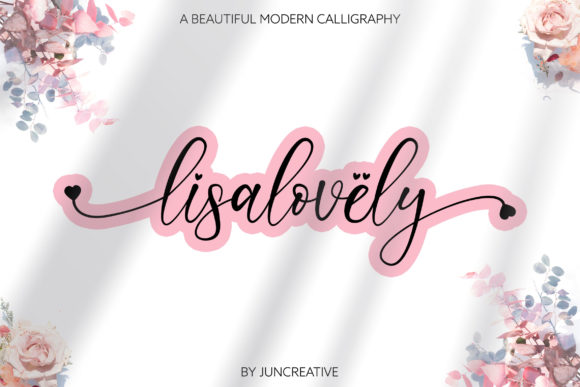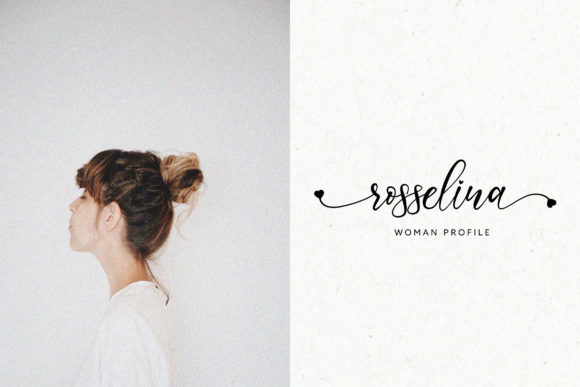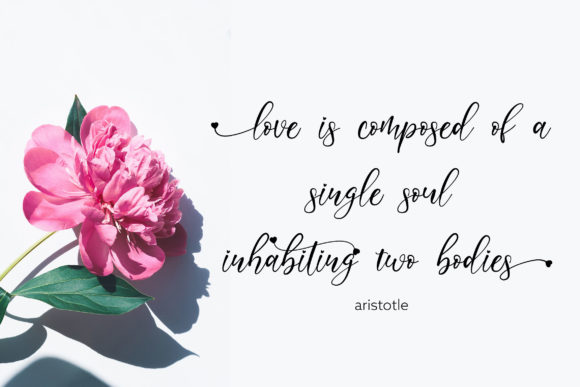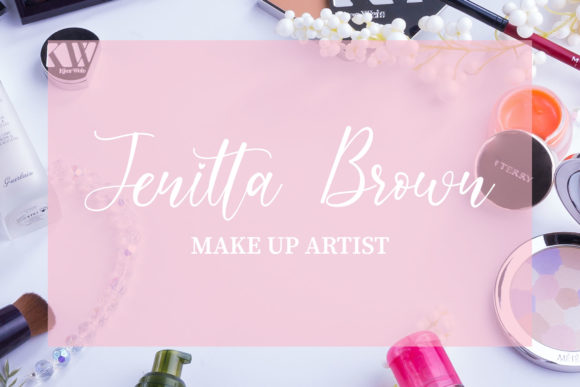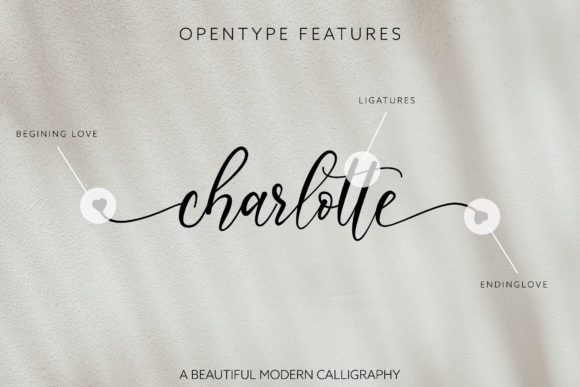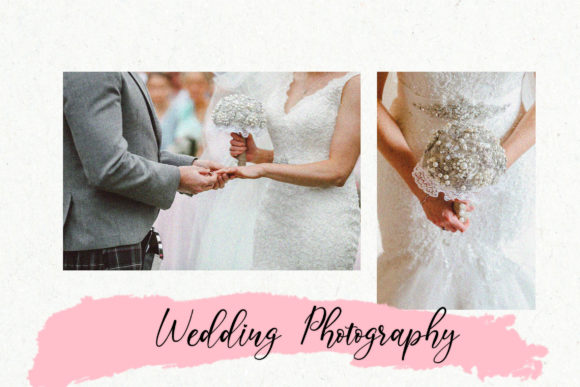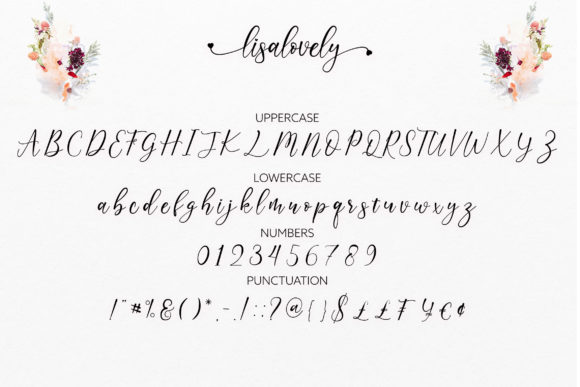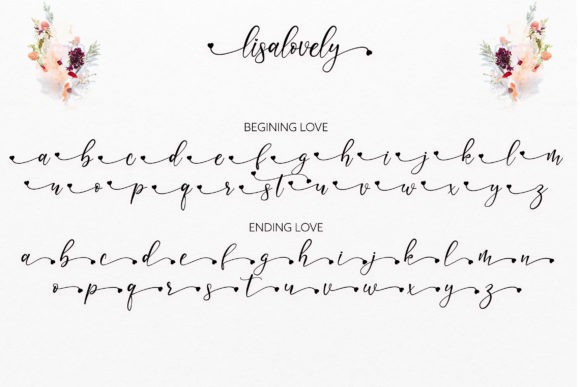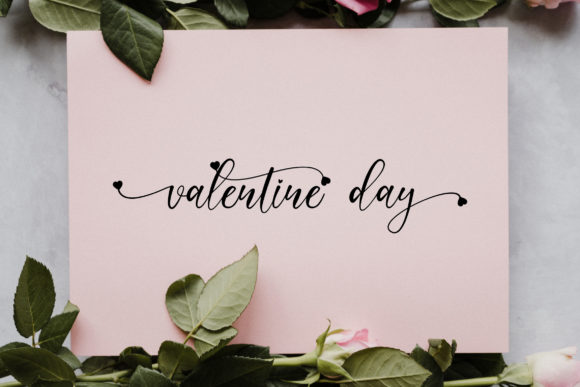
HomeScript FontsLisalovely Font Script Fonts Lisalovely Font FacebookXPinterestWhatsApp Lisalovely Font Poster 2 Lisalovely Font Poster 3 Lisalovely Font Poster 4 Lisalovely Font Poster 5 Lisalovely Font Poster 6 Lisalovely Font Poster 7 Lisalovely Font Poster 8 Lisalovely Font Poster 9 About Lisalovely Font Lisalovely is a wonderfully playful script full of charm. Fall in love with its modern elegance! DOWNLOAD ON CREATIVE FABRICAThis font is sold and delivered by Creative Fabrica. Font Canyon may earn a commission if you buy through this link. People also explored Kalimantan Font Hei Sweety Font Vintage Rumble Font Namira Font Mandala Vintage Flower House Font Everest Font Signatine Font The Beatle Font 482 0 TagsLisalovely Font Previous articleChild and Family FontNext articleQuritta Font LEAVE A REPLY Cancel reply Comment: Please enter your comment! Name:* Please enter your name here Email:* You have entered an incorrect email address! Please enter your email address here Website: Save my name, email, and website in this browser for the next time I comment. Personal Use Free Strasua Personal Use Free Read more about this font Hollster Personal Use Free Read more about this font Calega Personal Use Free Read more about this font Fuixg Personal Use Free Read more about this font BLOG Free vs Paid Fonts: Why Investing in Premium Fonts Is Worth It Free vs Paid Fonts: Why Premium Fonts Are Worth It in 2025 The debate of free vs paid fonts continues in the design world. While... Elegant Wedding Invitation Fonts – Handwritten & Script Fonts Best Fonts for T-Shirt Design – Top 2025 Picks Top 7 Google Fonts Alternatives for Faster and Privacy-Friendly Web Design (2025)